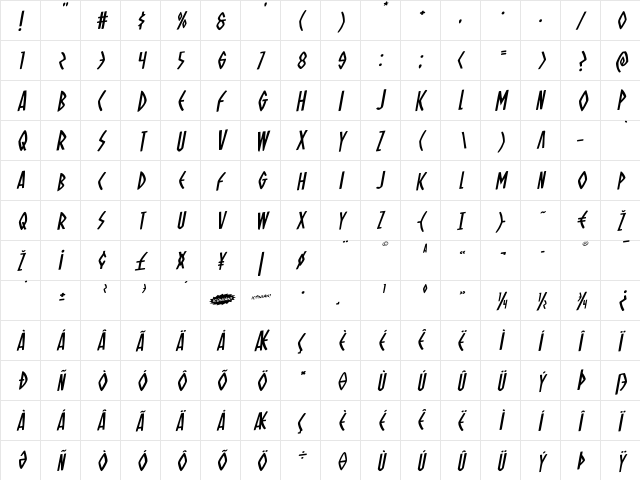
Oh Mighty Isis Rotalic Italic
Design Context for Oh Mighty Isis Rotalic Typeface
Oh Mighty Isis Rotalic is a composed and adaptable typeface that performs quietly and consistently across a wide range of design contexts. The dynamic lean of this cut emphasises speed and emphasis in any layout.
Pro Tip: Use Oh Mighty Isis Rotalic for emphasis, pull quotes, and subheadings where its slanted energy can add rhythm to the layout.